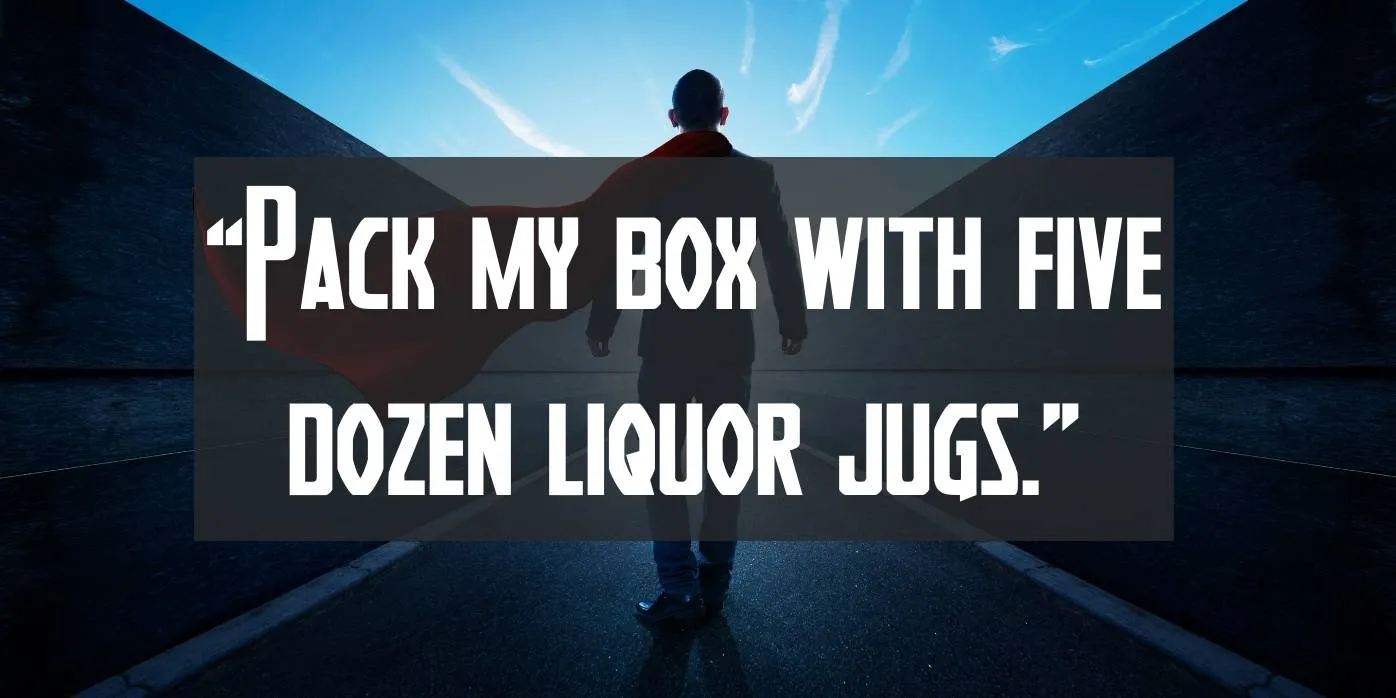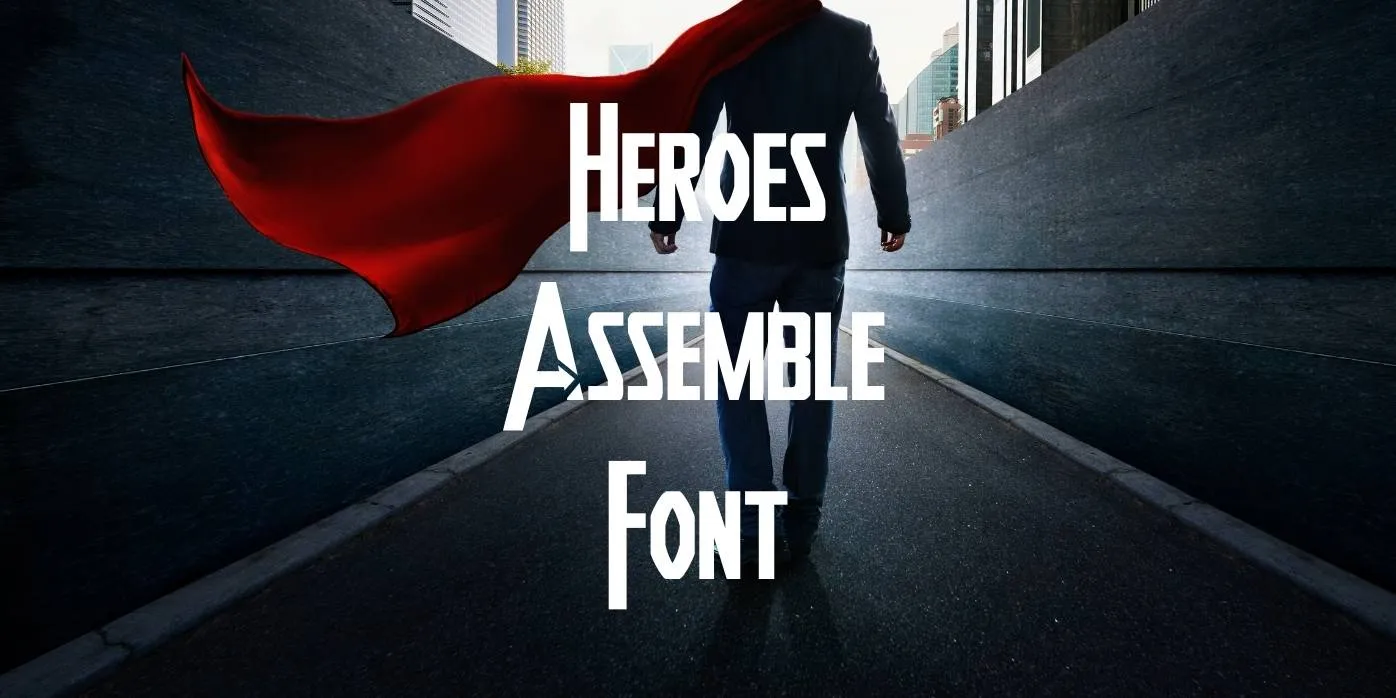
Heroes Assemble Font
Heroes Assemble font is designed by a well-known designer named Iconian Fonts. This font belongs to the display typeface. It is a very interesting font. It was designed to be used in the environment of a movie.
The font has a very modern and stylish look to it. This typeface is very unique, making it perfect for any type of signage you might need in an underground setting. This typeface also has a bold option, which can be used to create various tasks. This awesome font is a great resource for anyone who wants to learn more about his interesting project.
This typeface contains different characters and spaces between these characters. This cute Font is perfect for adding a touch of sophistication to any project. Freshman font is most similar to this typeface. It is perfect for anyone who wants to add a touch of sophistication to their designs.
This typeface is famous for being light, Bold, and very legible.